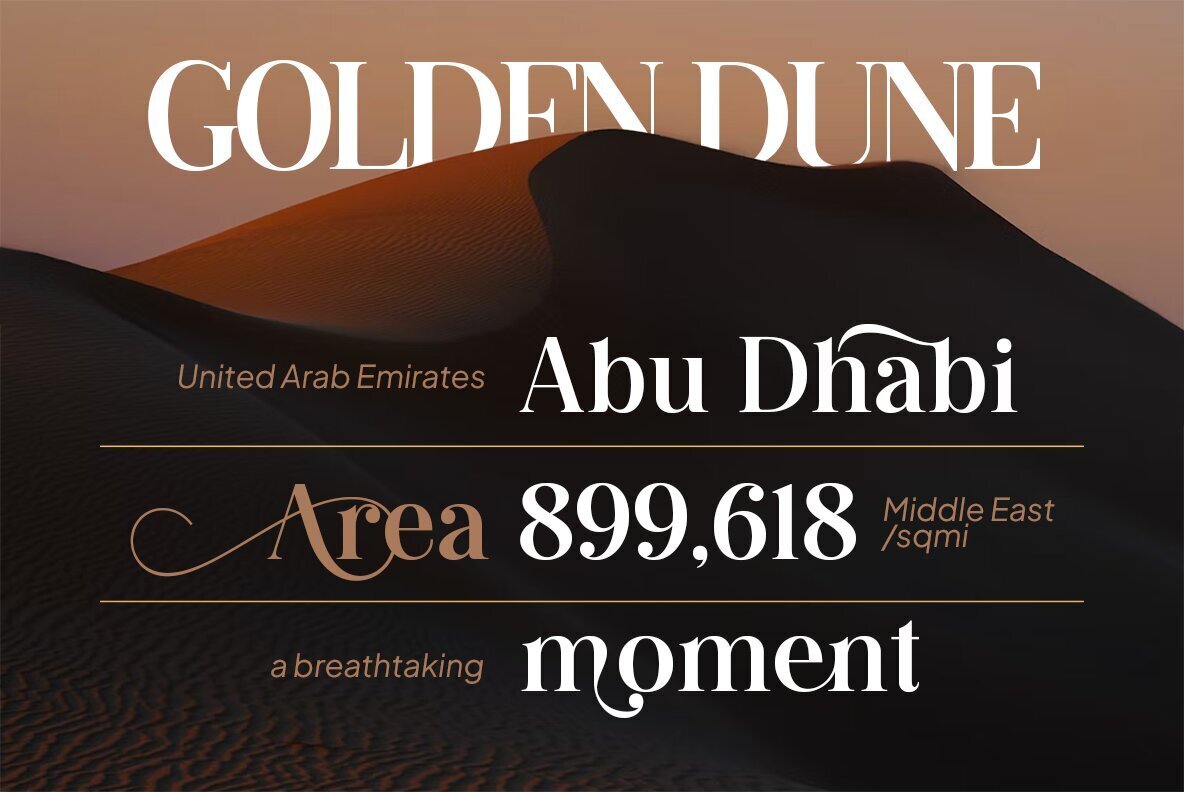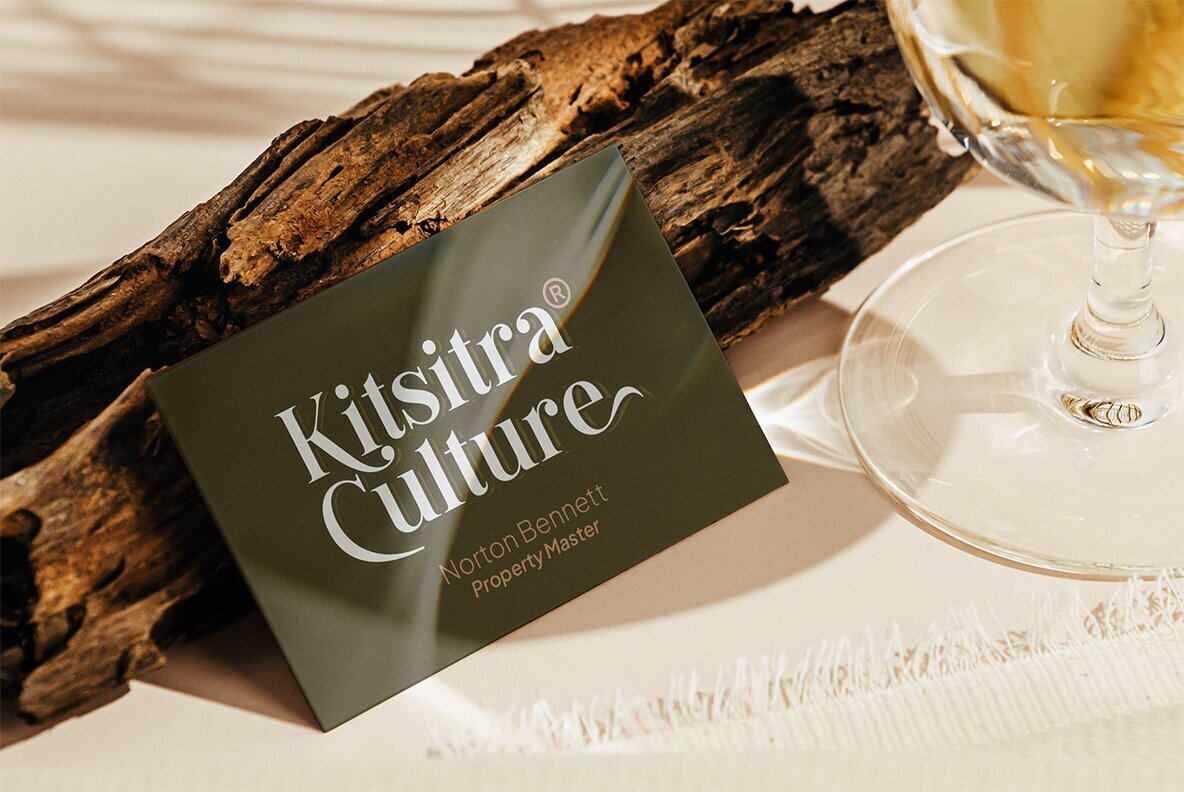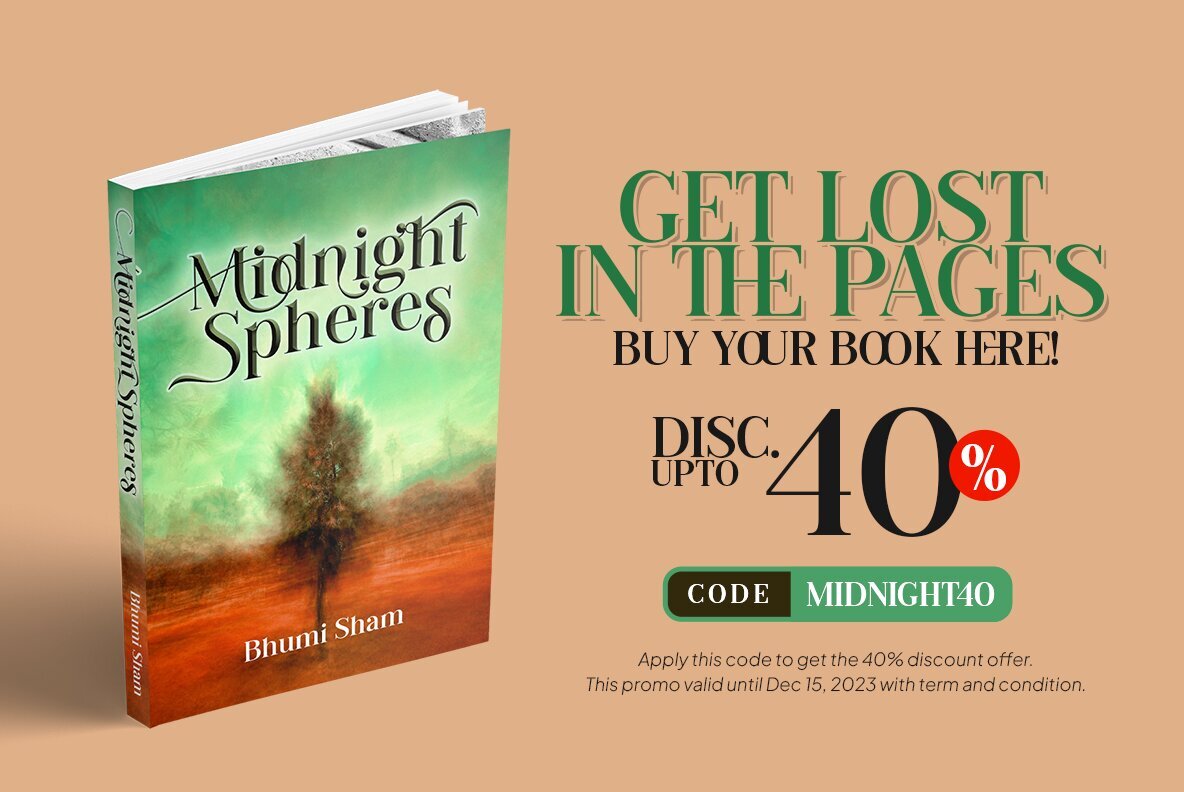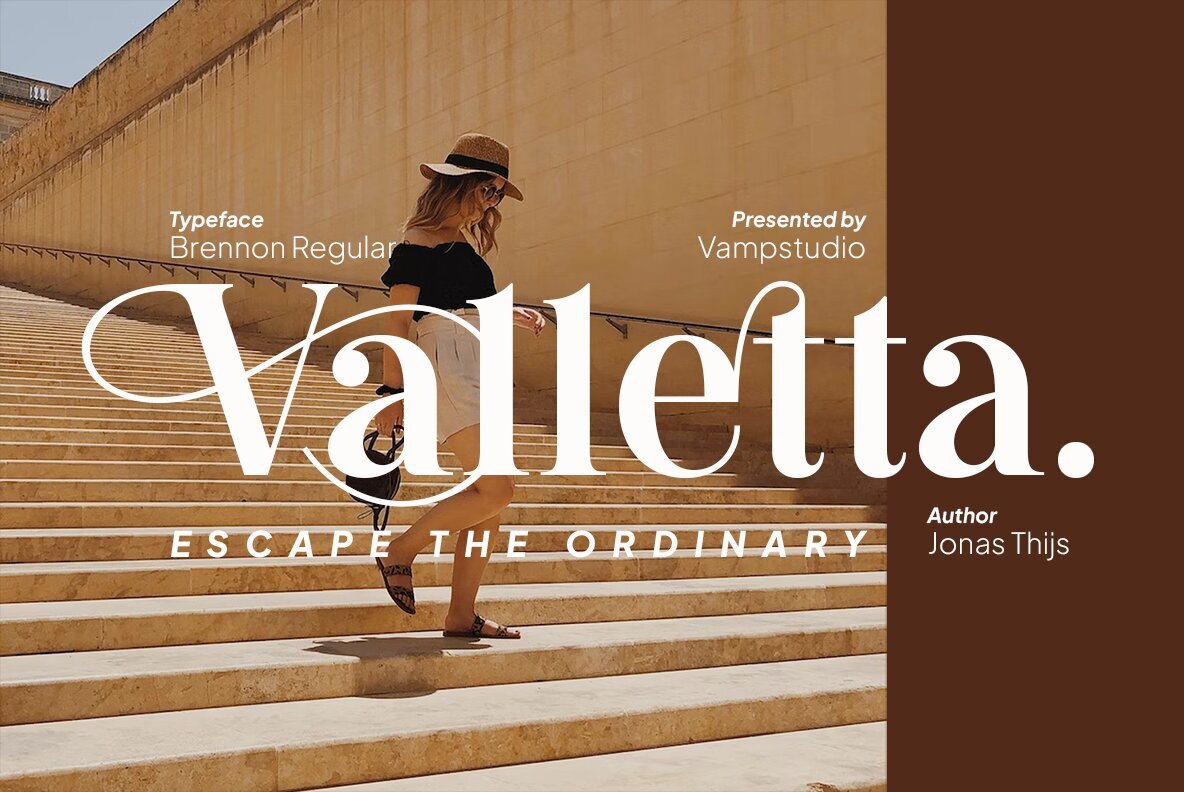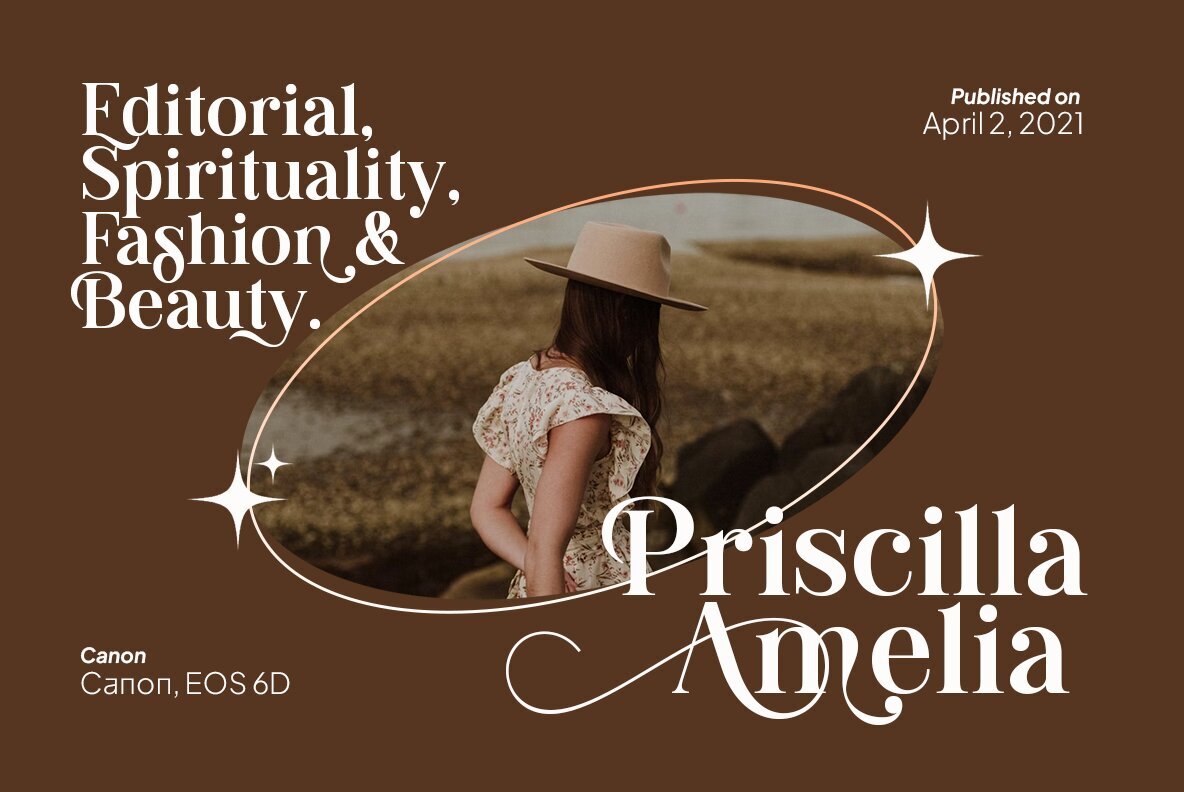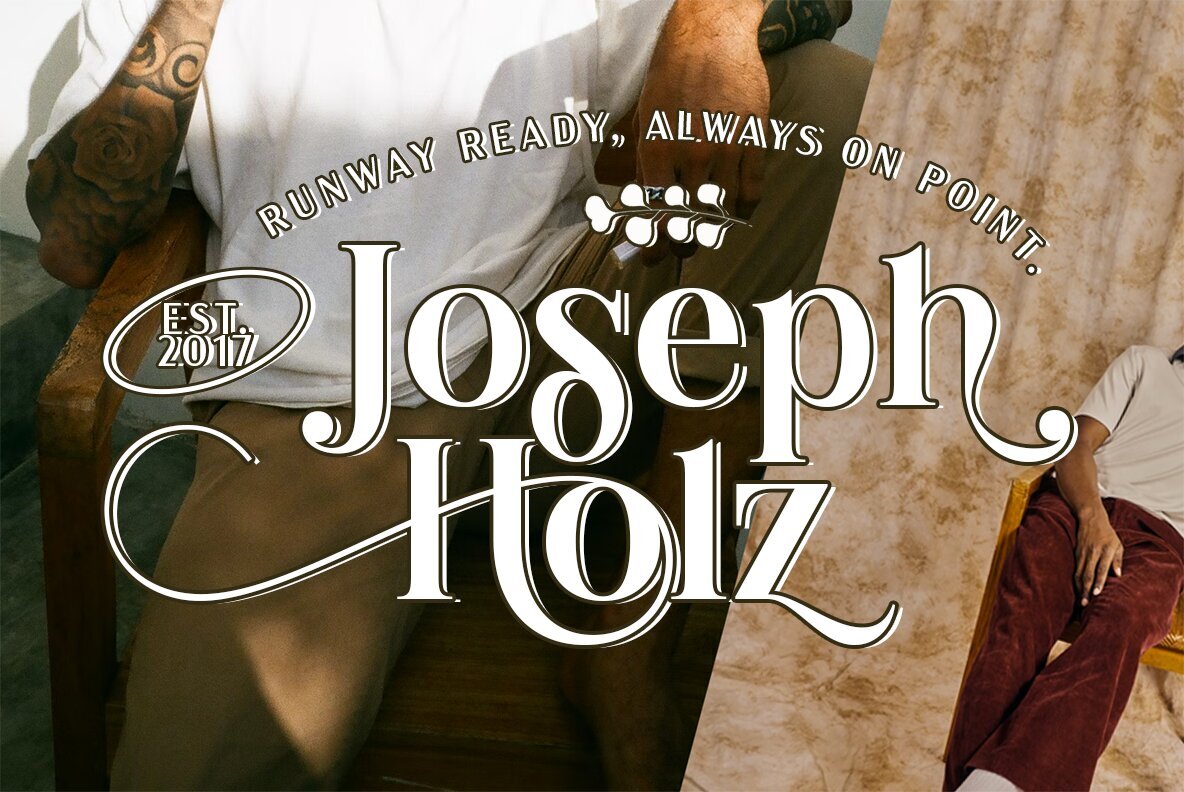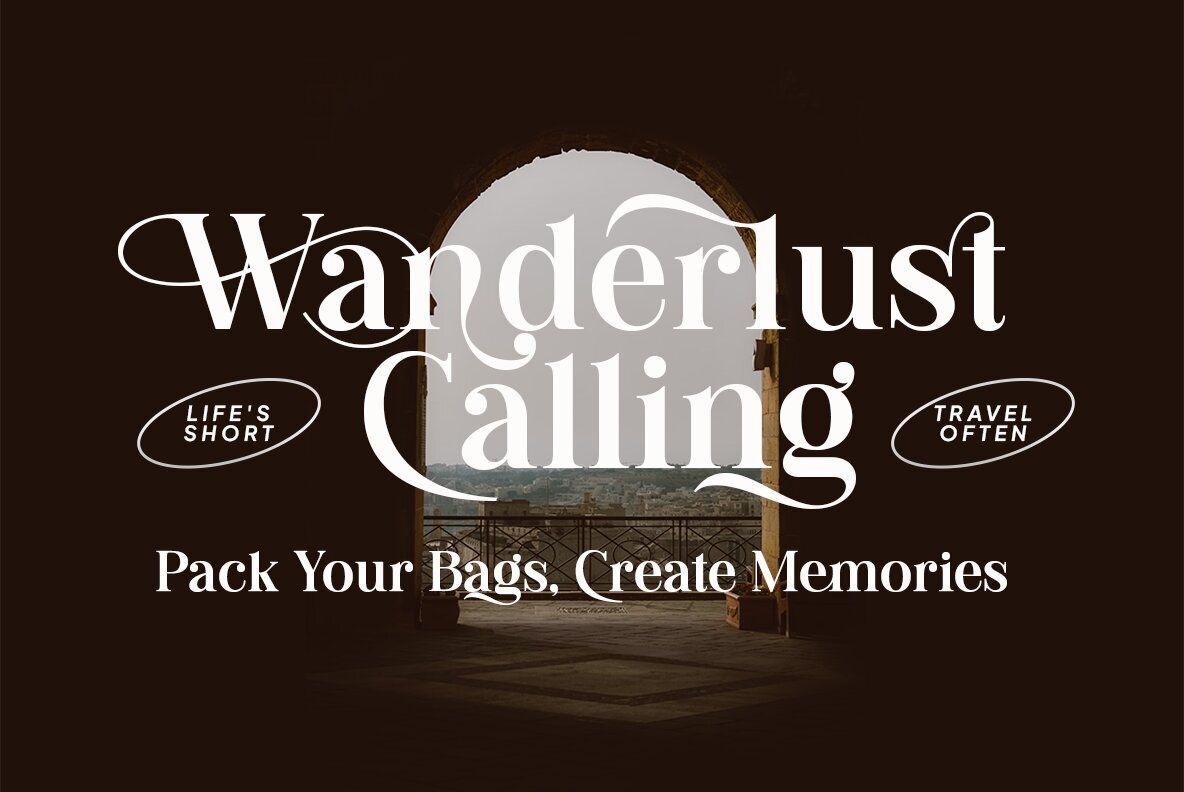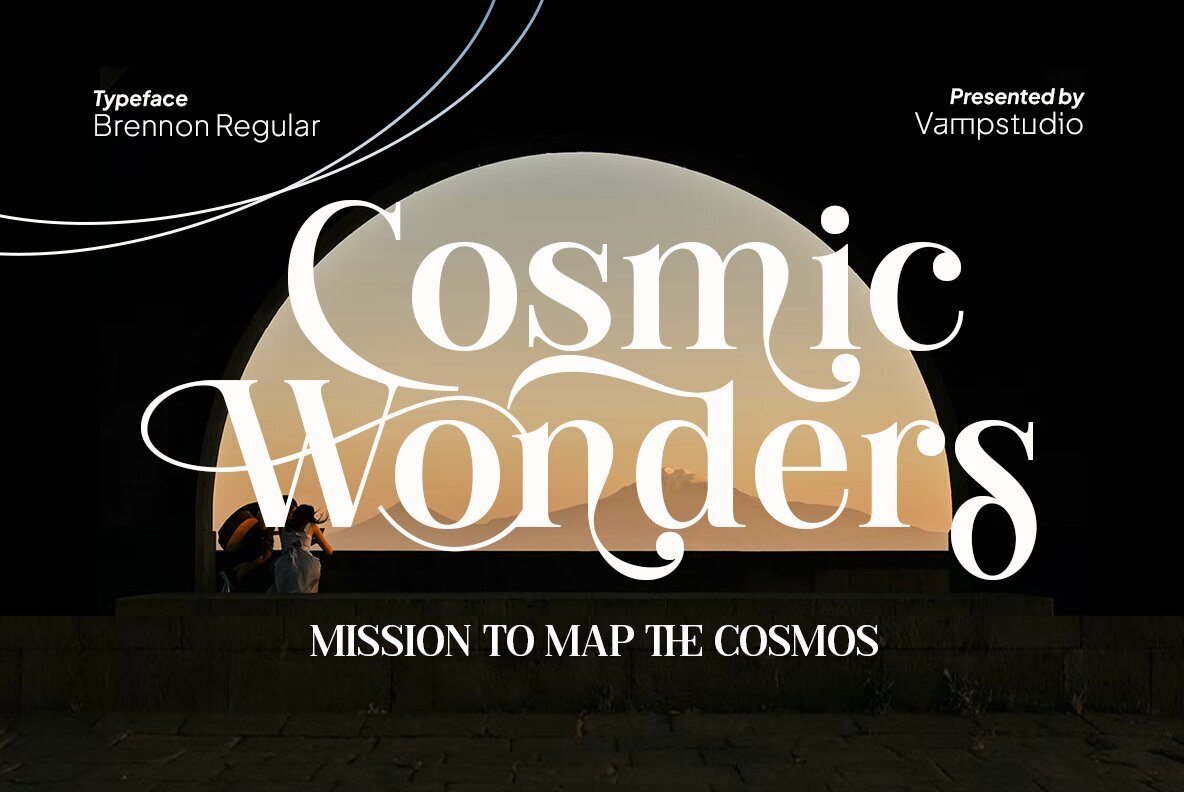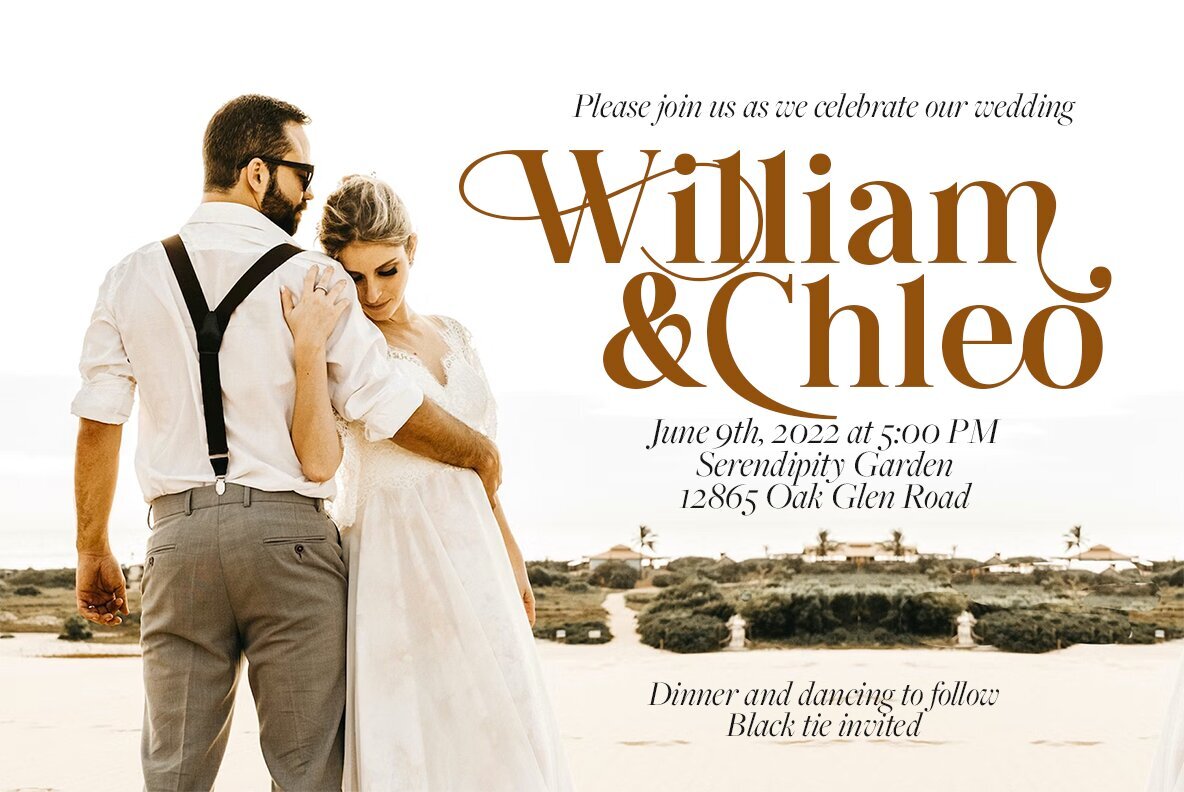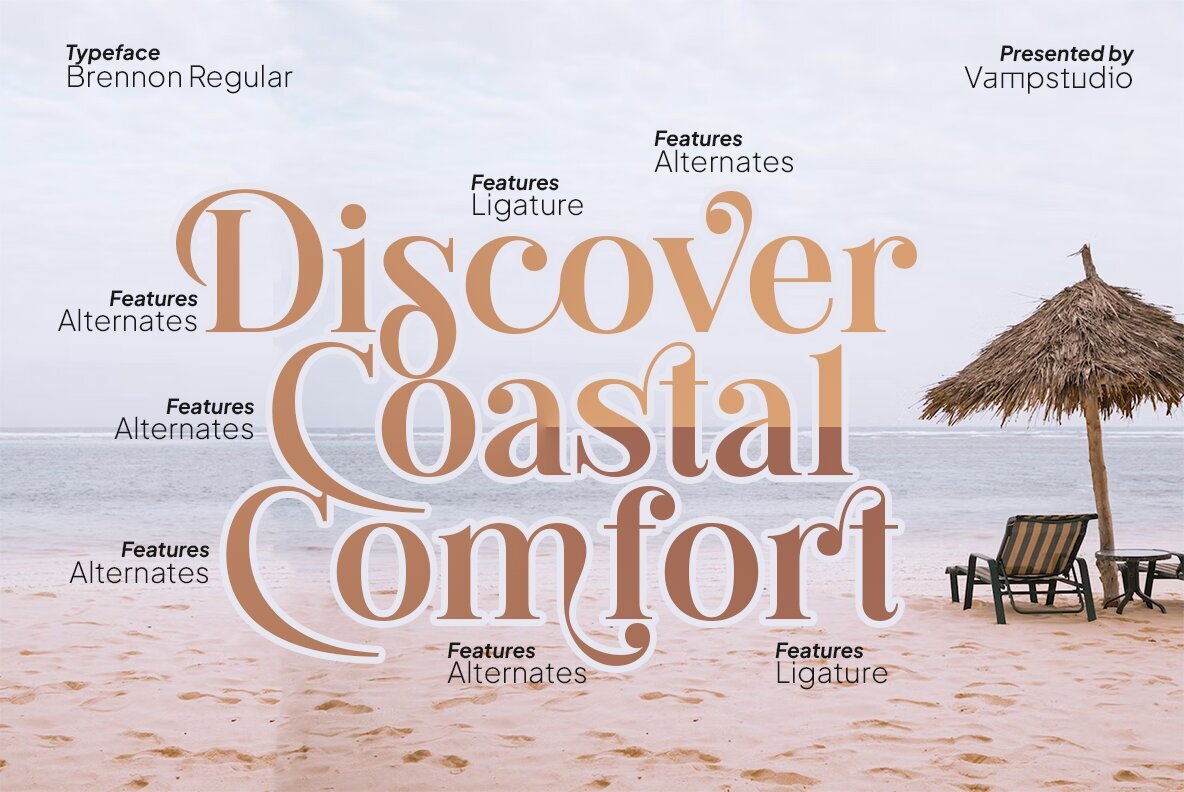
Brennon Font
Brennon Regular
Brennon Font combines modern design with timeless elegance to enhance your creative projects with its sleek sophistication. Brennon is perfect for branding projects, logos, wedding designs, social media posts, advertisements, product packaging, photography, watermarks, invitations, stationery, and any project that benefits from a handwriting touch.Brennon: Modern Elegance and Versatility in Typography